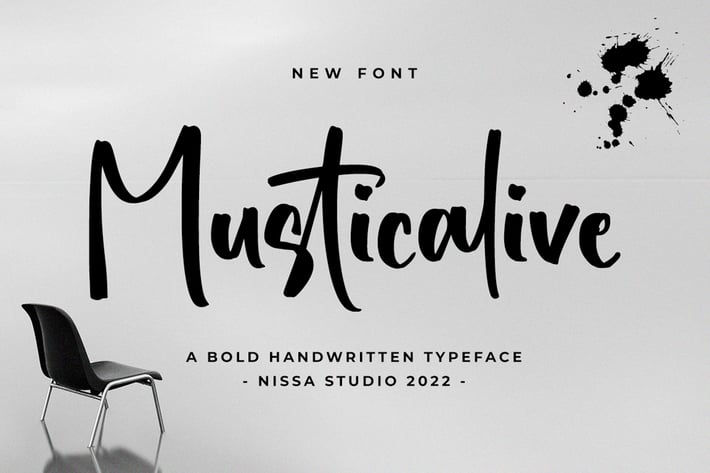
Musticalive - Brush Font
Musticalive is a lovely and bold script font that exudes elegance and class. It is perfect for those who need a beautiful and refreshing look to their designs.
Modern Handwritten Font
Special Ligatures